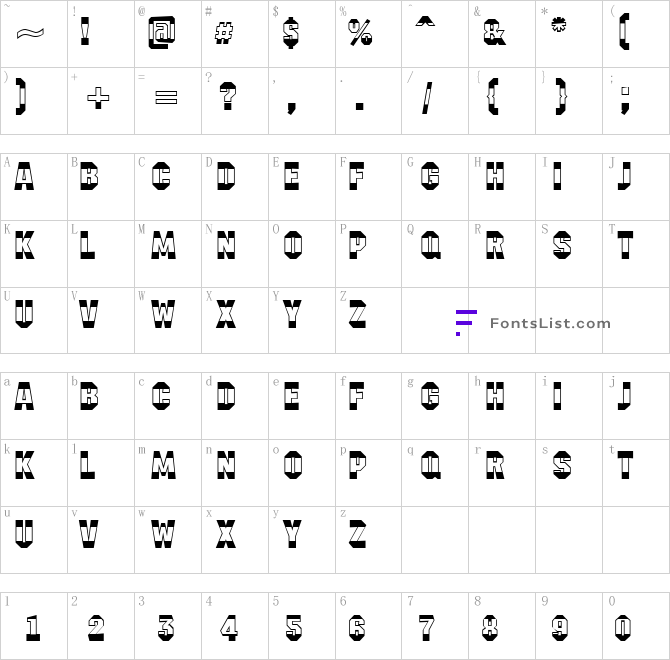
- Font Name:a_MeccanoB&W
a_MeccanoBlack-White.ttf is a very beautiful artistic font, a_MeccanoBlack-White.ttf is widely used in the design and printing of various books and pictures,a_MeccanoBlack-White.ttf has a strong visual impact,a_MeccanoBlack-White.ttf is a commonly used font in newspapers, magazines and books, and is used in posters, e-commerce Poster design, store design, logo design, font design and other fields.a_MeccanoBlack-White.